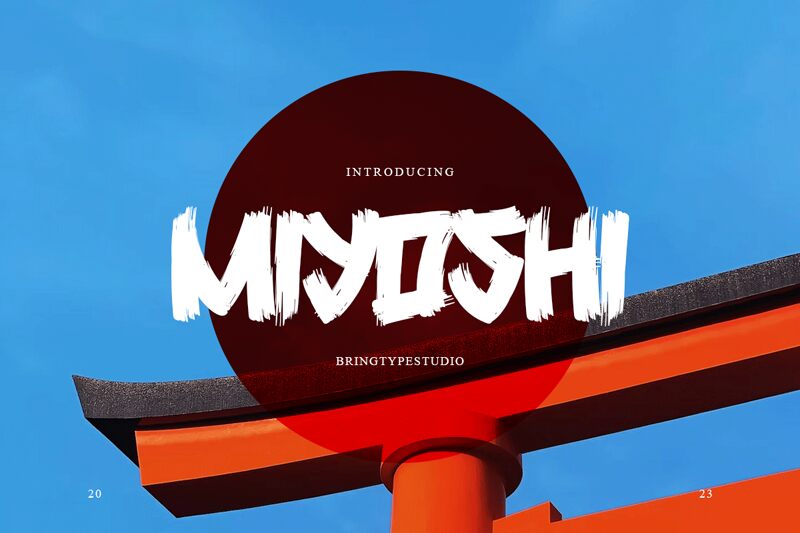
Miyoshi
Miyoshi emerges as a font that captures the raw energy and expressiveness of brush strokes, crafted with boldness by bringtypestudio.co. Each character exudes confidence, boasting thick lines that mimic the movement of a confident hand sweeping across canvas with unrestrained vigor. This brush-style font carries an artistic flair that is both dynamic and impactful, making it ideal for designs that aim to stand out.
Its robust presence lends itself perfectly to creative projects such as attention-grabbing headlines, spirited advertising campaigns, or compelling cover art where a touch of human creativity is desired. Miyoshi's boldness and fluidity ensure it will make a statement in any context where personality and strength are paramount.